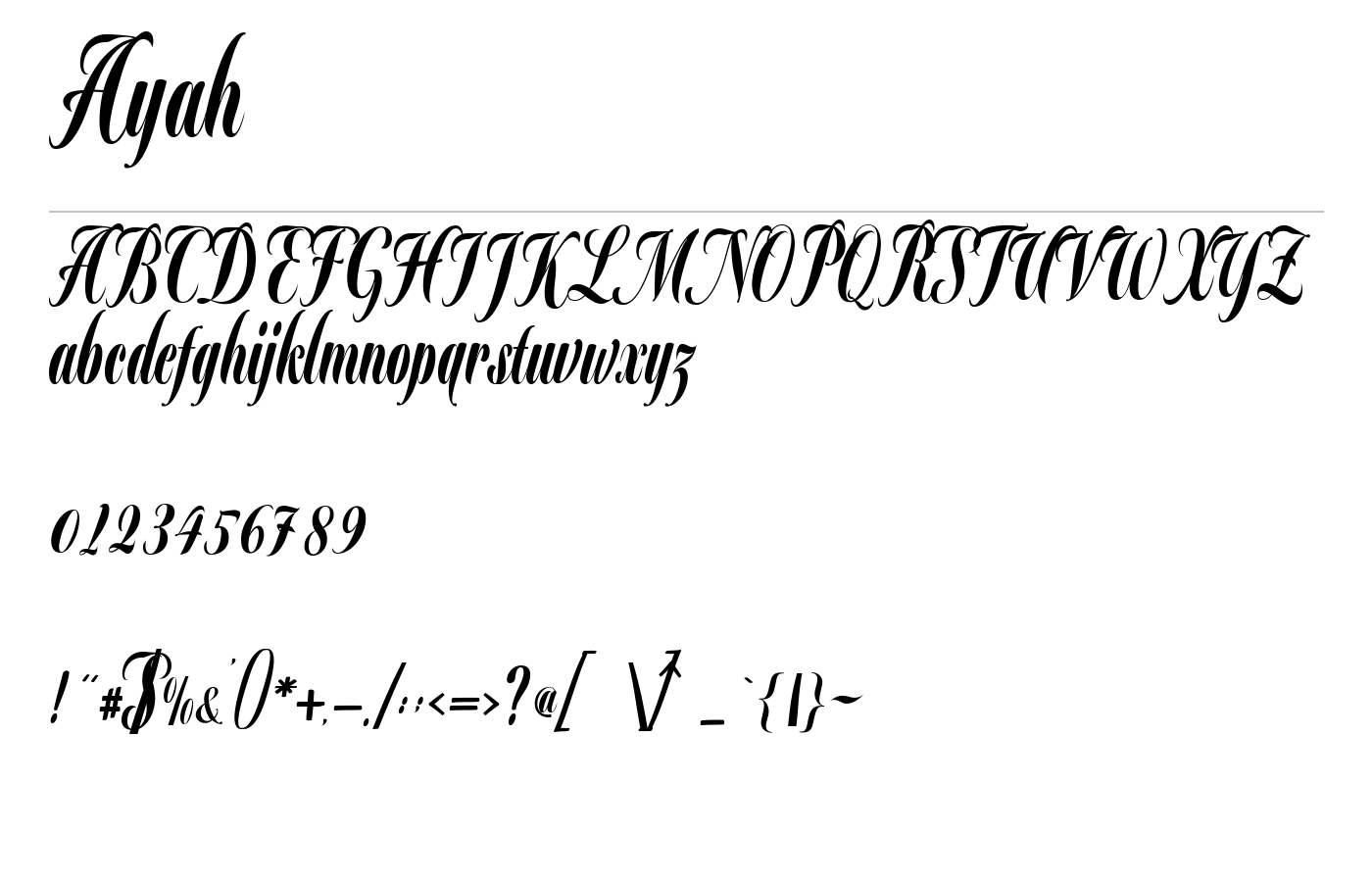
Ayah is an elegant script font with a bold, narrow structure and high contrast between thick and thin strokes that create a refined, stylish look. Its graceful letterforms, featuring delicate curves and flourishes, make it ideal for luxury branding, invitations, and sophisticated headlines where a touch of classic charm and personality is desired. This font stands out in designs that seek to blend modern flair with timeless elegance.
Ayah Font